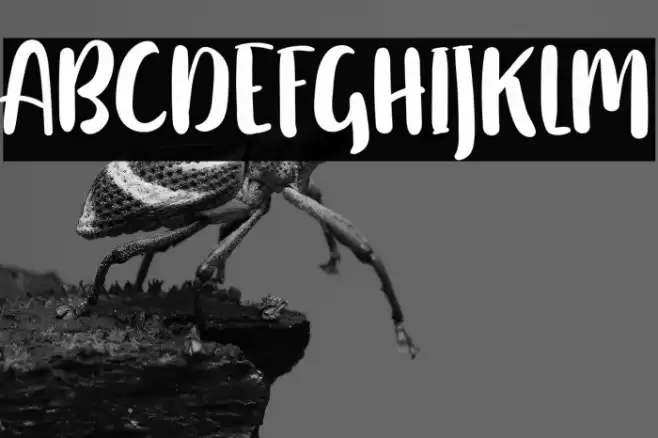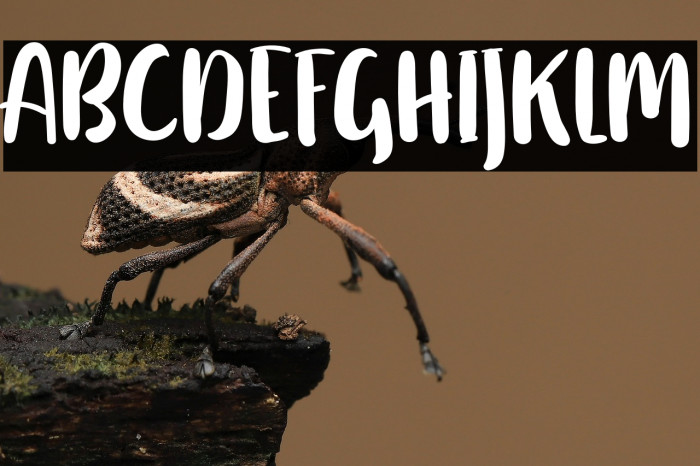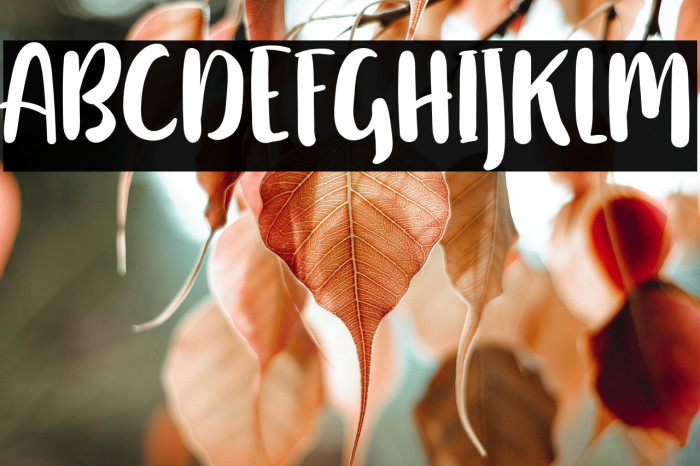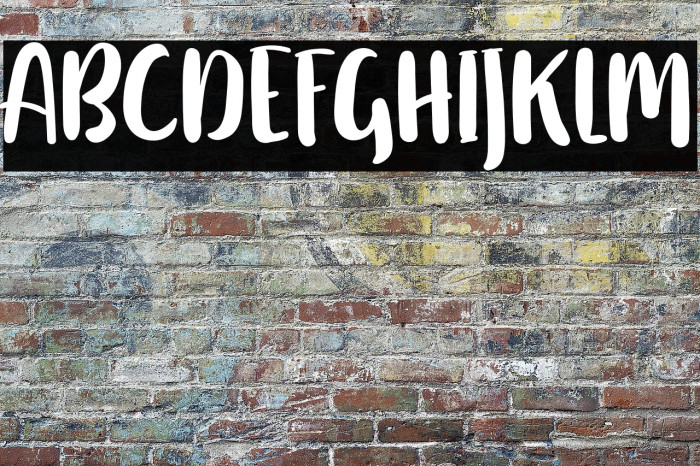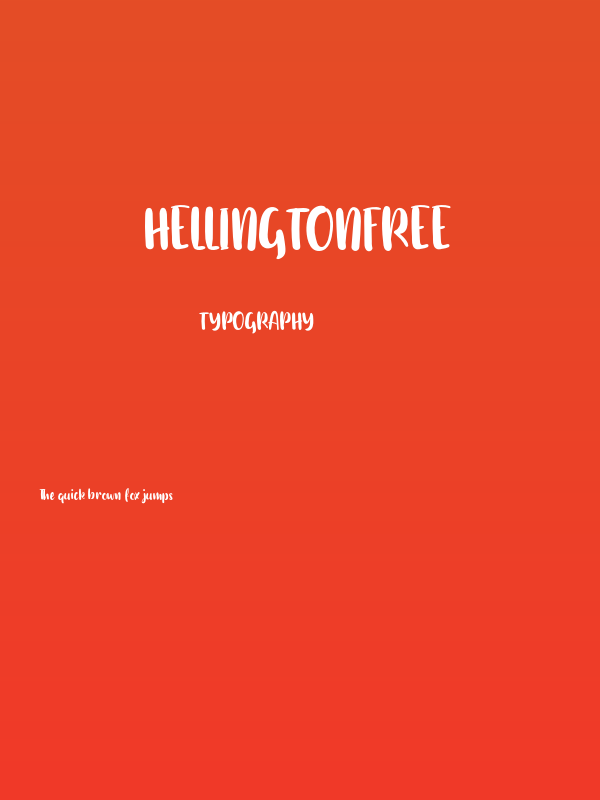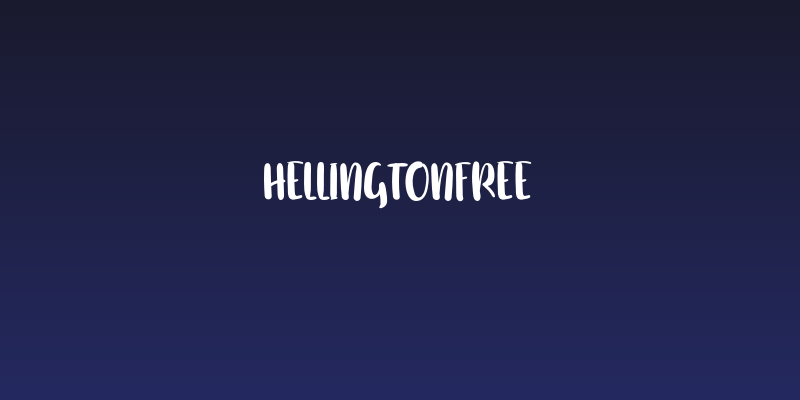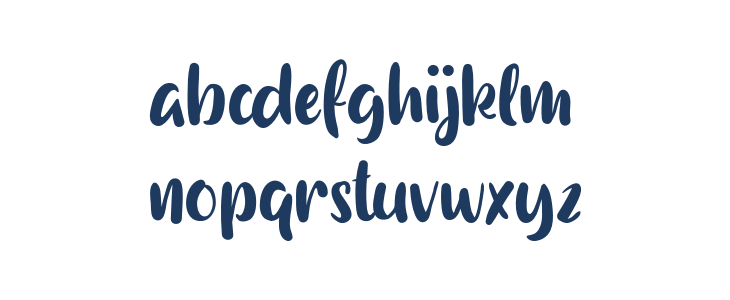
HellingtonFREE Font
HellingtonFREE Description
This font features a bold and expressive handwritten style, characterized by its fluid and dynamic strokes. The letters have a playful and casual appearance, with varying stroke widths that add a sense of movement and energy. The uppercase letters are tall and slightly narrow, while the lowercase letters maintain a consistent flow with rounded edges. This font exudes a friendly and approachable vibe, making it suitable for projects that require a personal touch. Its unique style is perfect for creating eye-catching designs that stand out.
A bold, expressive handwritten font with dynamic strokes and a playful vibe from Uncategorized fonts.
- Font: HellingtonFREE
- Proposed Projects: Ideal for greeting cards, invitations, branding, social media graphics, and posters.